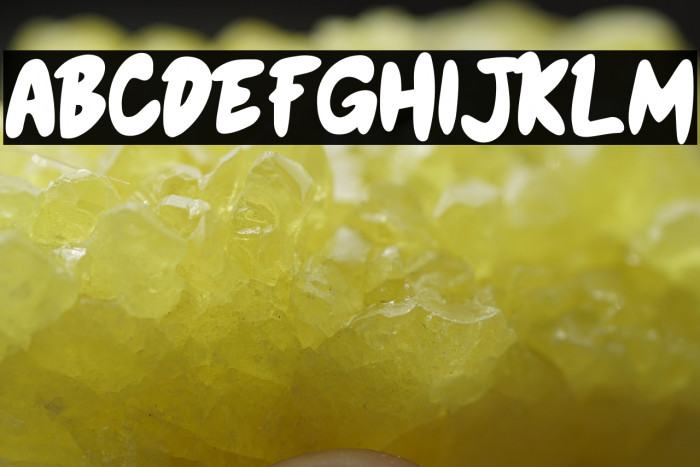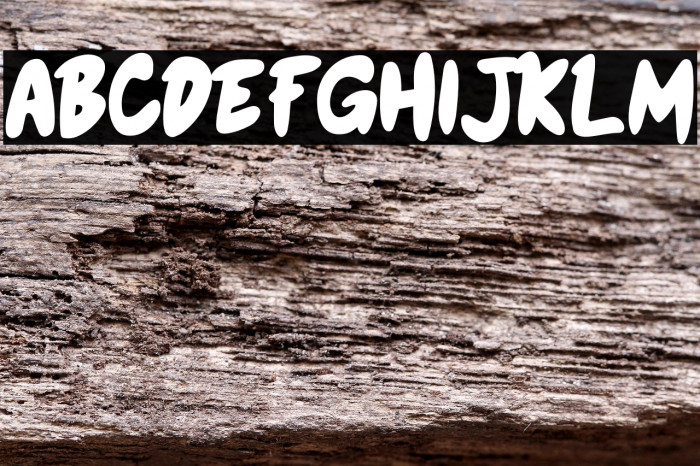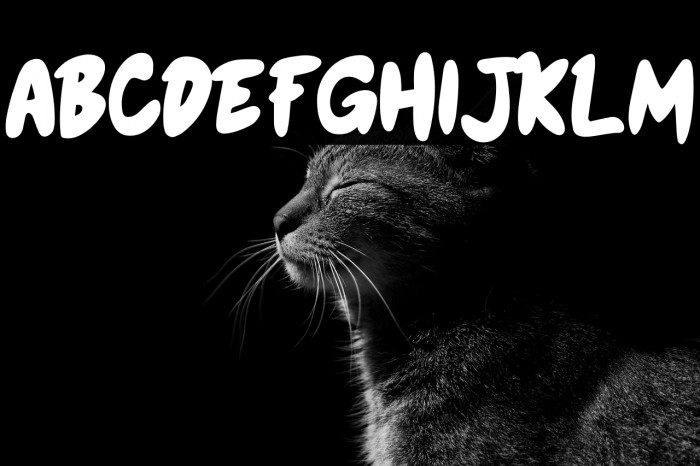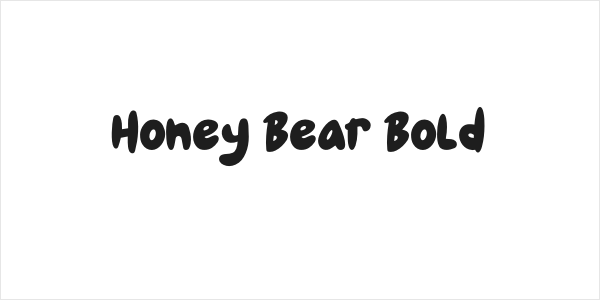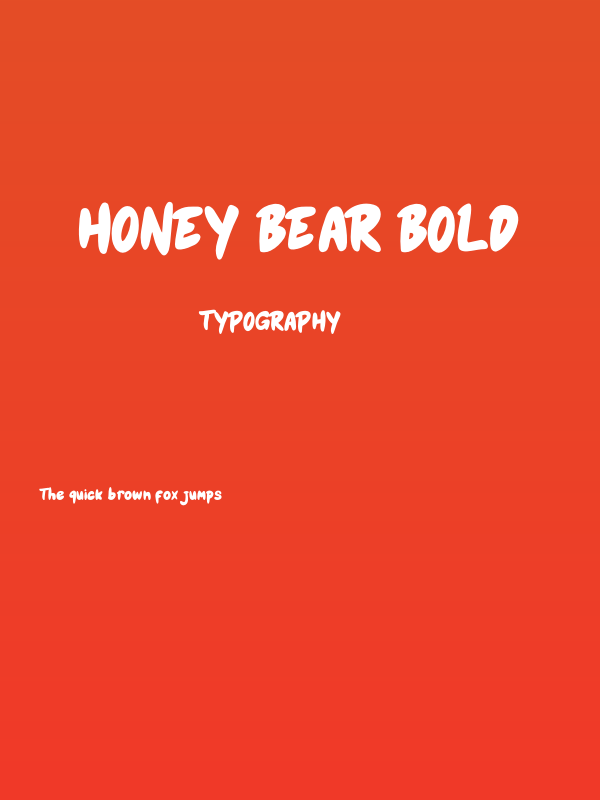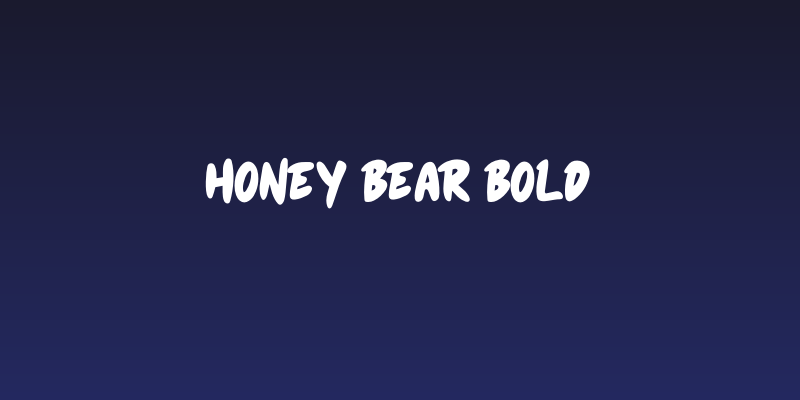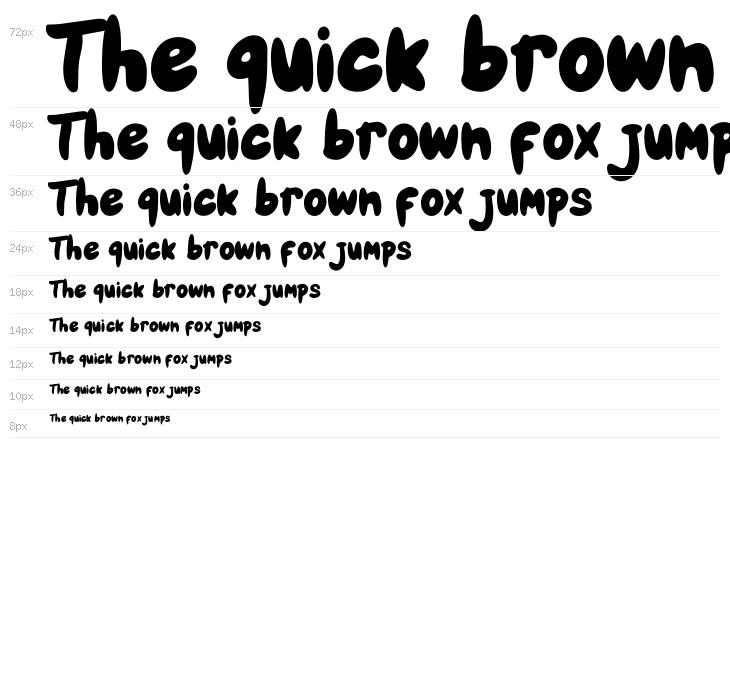
Honey Bear Bold Font
Honey Bear Bold Description
This playful and bold font features rounded, thick strokes that give it a friendly and approachable appearance. The characters are slightly irregular, adding a whimsical touch to the overall design. The uppercase and lowercase letters maintain a consistent style, with a noticeable emphasis on curves and smooth edges. Numbers and special characters are equally bold and rounded, ensuring a cohesive look across all elements. This font is ideal for projects that require a fun and engaging aesthetic, such as children's books, playful branding, or eye-catching headlines.
| Proposed Projects | Ideal for children's books, playful branding, eye-catching headlines, and fun posters. |